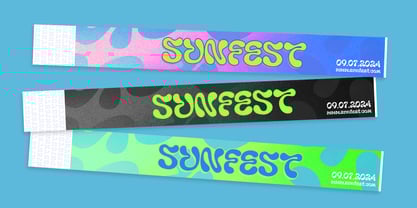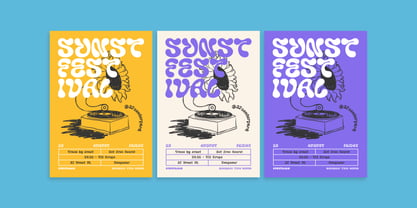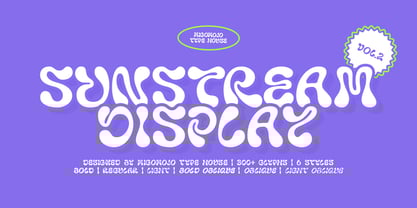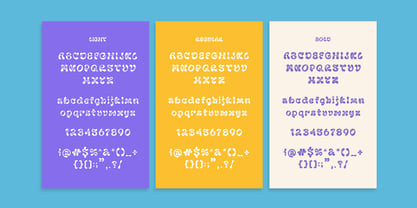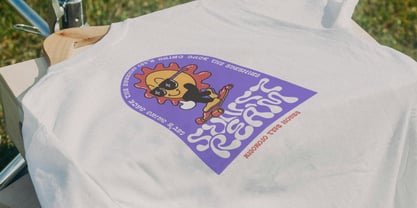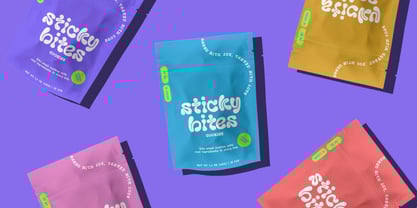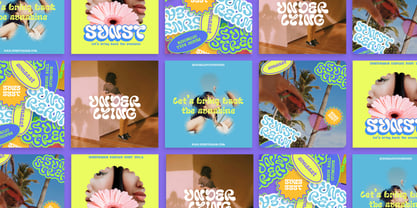
Sunstream
von Migomojo Type House
Die Schriftfamilie Sunstream wurde von Komara Sani entworfen und von Migomojo Type House veröffentlicht. Sunstream enthält 6 Stile und Familienpaketoptionen. Mehr über diese Familie
Sunstream is a unique display font channeling the vibrant spirit of the Y2K era. It seamlessly blends natural curves with digital precision, transmuting and digitizing the beauty of flowing liquor into the font and embracing its own shape. Perfect for posters, branding projects, social media campaign, and designs that evoke a sense of fun, funk, and metamodernism. A Y2K-inspired retrofuturistic typeface with flowing energy. Let’s bring back the sunshine!
Designer: Komara Sani
Foundry: Migomojo Type House